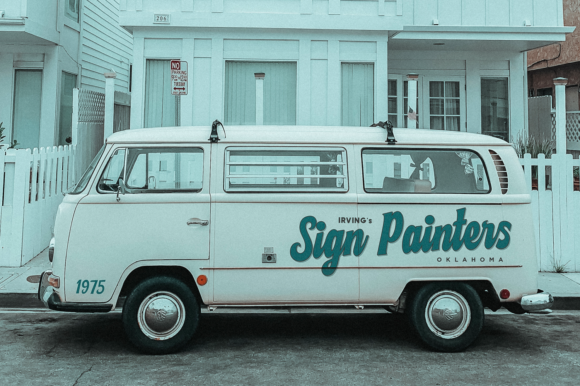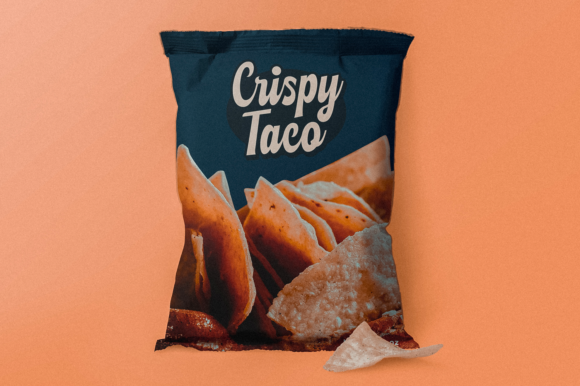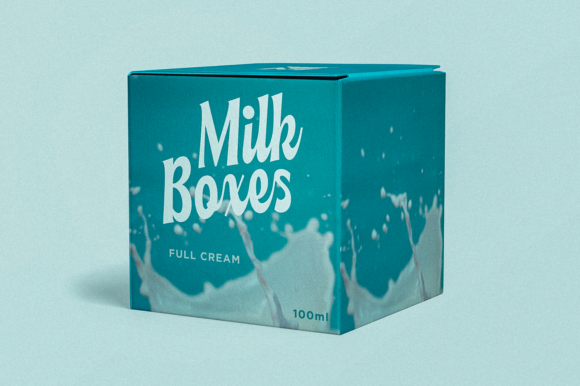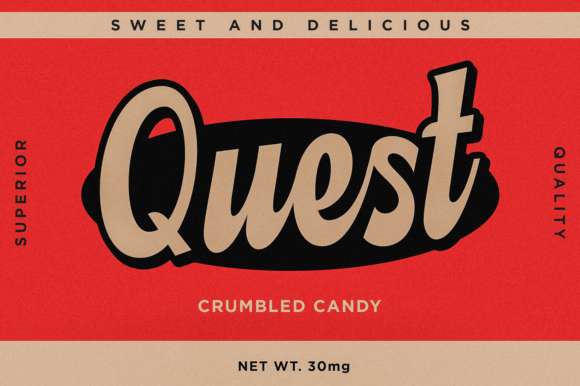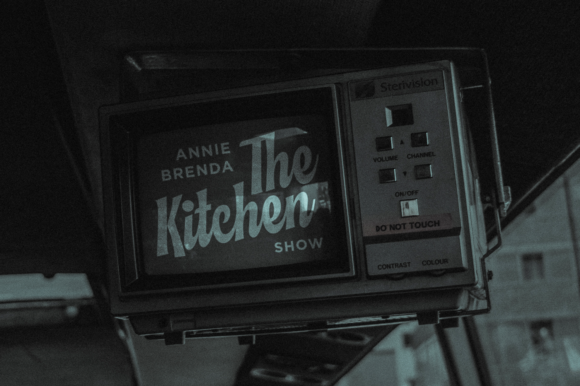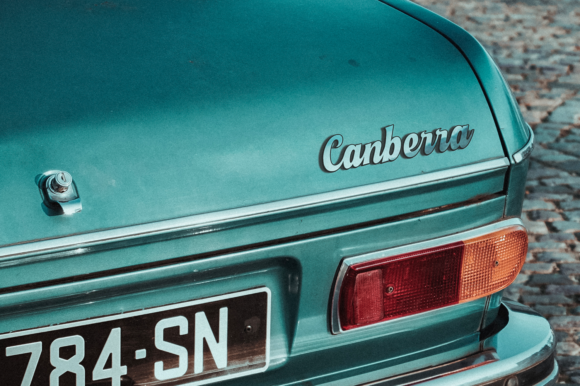
Introduction to Mister Quenos Font
As a designer, there’s nothing quite like the rush of inspiration that comes from stumbling upon the perfect font for a creative project. For me, it was a late-night brainstorming session, surrounded by scribbled notes and half-finished designs, when I finally discovered the Mister Quenos Font. Its bold, handwritten style immediately caught my eye, and I knew I had to learn more.
What I love about the Mister Quenos Font is its ability to add a touch of nostalgia and sophistication to any design. With its transparent background and high-quality design, it’s the perfect resource for designers looking to elevate their projects. Whether you’re working on a logo, headline, or branding campaign, this font is sure to make a statement.
Key Features of Mister Quenos Font
- High-quality design resource with a transparent background, perfect for creative projects.
- Includes a range of characters, including uppercase and lowercase letters, numbers, and special symbols.
- Designed with a unique, stylish aesthetic, making it ideal for creative projects that require a touch of sophistication.
- Supports a wide range of languages, including English, Spanish, French, and many more.
- Comes with a comprehensive character map, making it easy to access and use all the available characters.
Honest Review: Mister Quenos Font
I recently stumbled upon the Mister Quenos Font, and I’m excited to share my thoughts on this design resource. As a designer, I’m always on the lookout for high-quality fonts that can elevate my creative projects. In this review, I’ll dive into what works well and what might be lacking in this font.
- Unique and creative design: The Mister Quenos Font has a distinctive look that sets it apart from other fonts. Its bold, playful style makes it perfect for projects that require a touch of whimsy.
- High-quality design: The font is well-crafted, with smooth lines and clear typography. This makes it suitable for a wide range of applications, from digital designs to print materials.
- Limited font styles: While the font is well-designed, it’s limited to a single style. This might not be ideal for projects that require multiple font styles.
- No transparent background: The font doesn’t have a transparent background option, which might limit its use in certain design applications.
Overall, the Mister Quenos Font is a great addition to any designer’s toolkit. Its unique design, high-quality construction, and free download make it an excellent choice for creative projects. However, its limitations might be a drawback for some designers. If you’re looking for a bold, playful font for your next project, the Mister Quenos Font is definitely worth considering.
Mister Quenos Font can also be used in PowerPoint and Word to create engaging presentations and documents. Its creative project-friendly design makes it easy to customize and personalize your content. You can even use its transparent background feature to add a unique touch to your slides and documents.
Tips for Getting the Most Out of Mister Quenos Font
To get the most out of Mister Quenos Font, use it in combination with other design elements to create visually appealing graphics. Experiment with different font sizes, colors, and styles to achieve the desired look. You can also use it to create a consistent brand identity across all your marketing materials.
Mister Quenos Font is commonly used in a variety of creative projects, including social media graphics, presentations, marketing materials, and documents. Its versatility and high quality make it an ideal choice for designers and non-designers alike.
Is Mister Quenos Font suitable for a creative project requiring high-quality typography?
Mister Quenos Font is designed to provide high-quality typography for creative projects. Its unique design and smooth curves make it perfect for titles, headings, and body text. You can use it in various design applications, from print to digital media, to create visually stunning and engaging content.